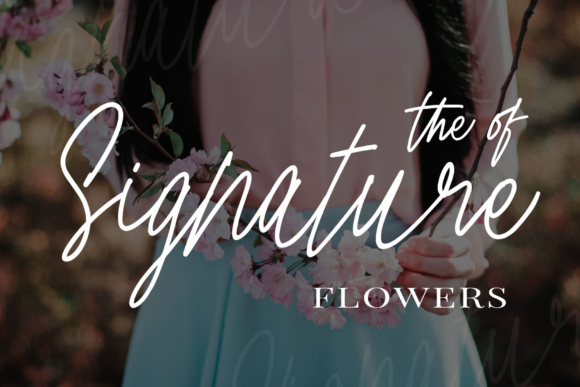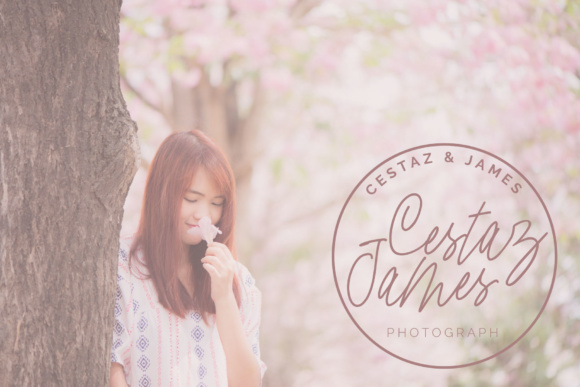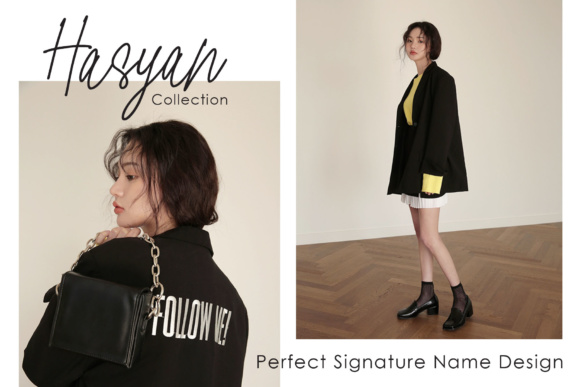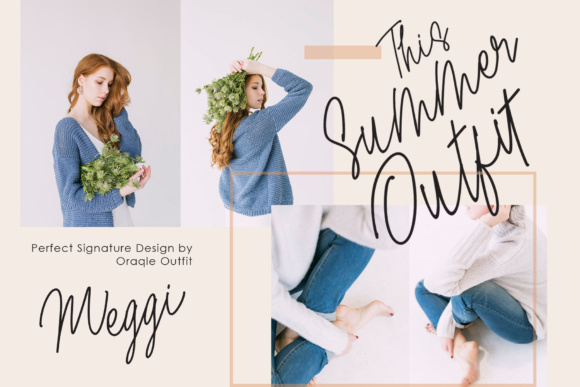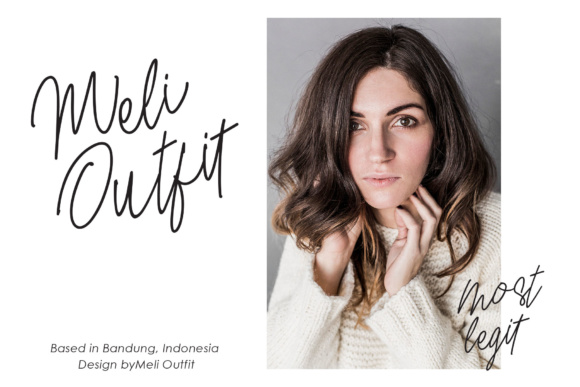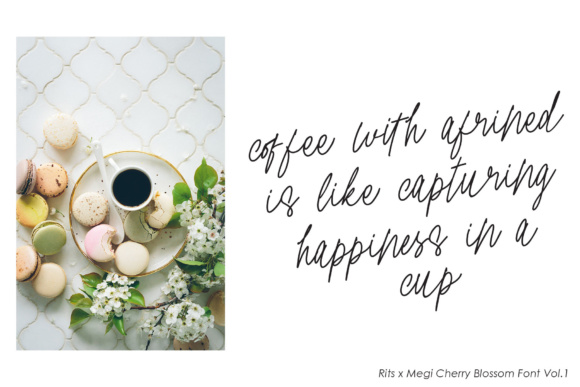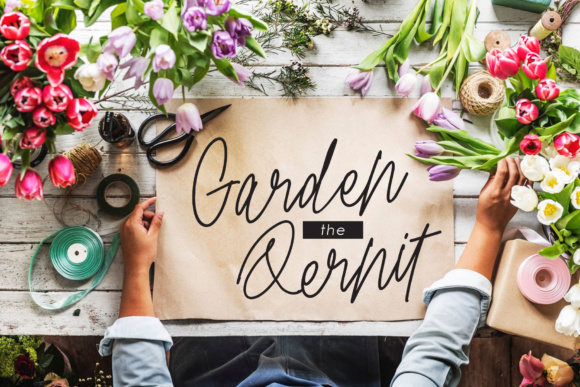
Cherry Blossom Font
About Cherry Blossom Font
Cherry Blossom is a new, fresh, handmade calligraphy font. It is a clean, bouncy, beautiful font. Cherry Blossom can be incorporated into many designs including quotes text, wedding invitations, posters and much more!